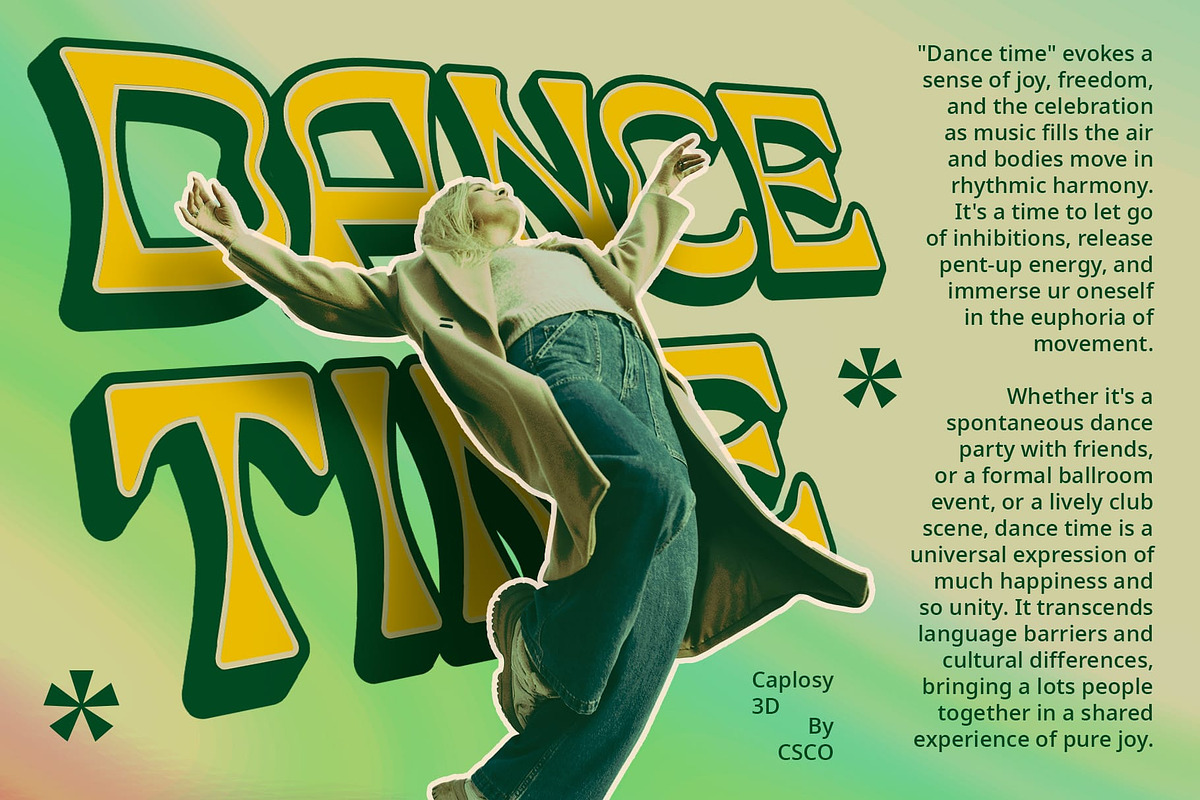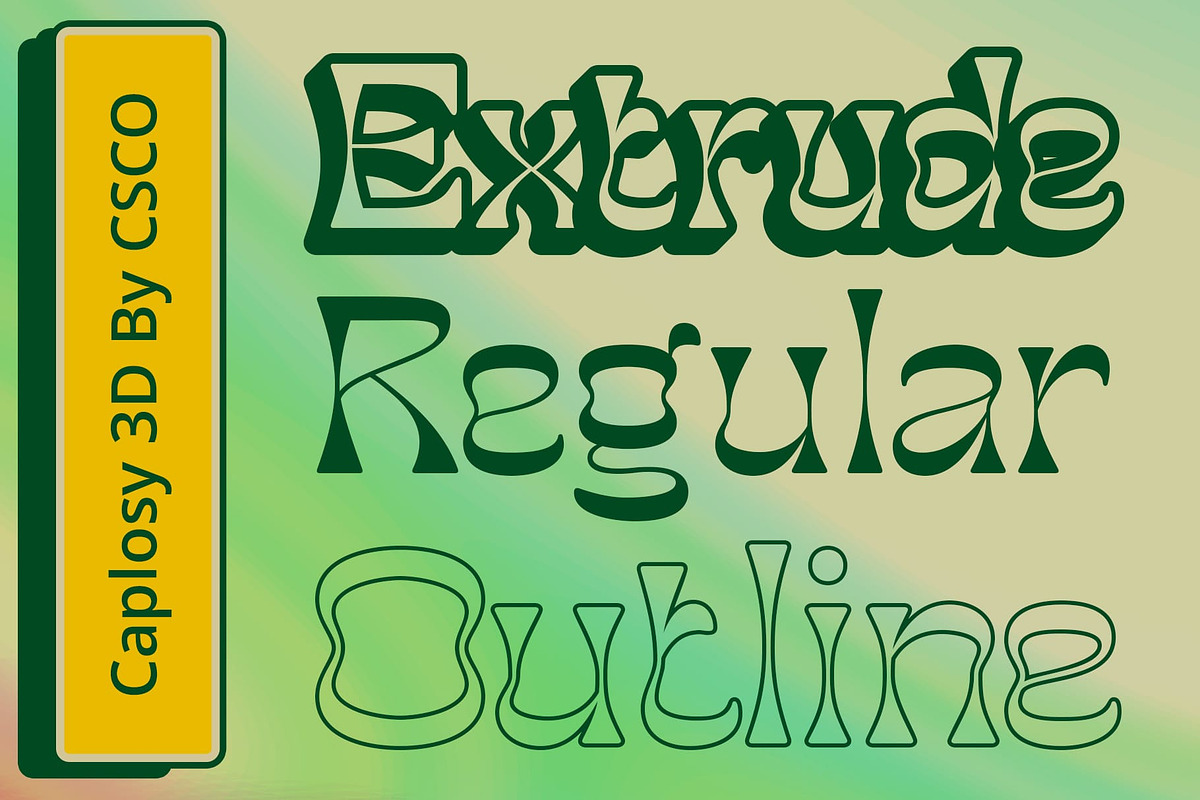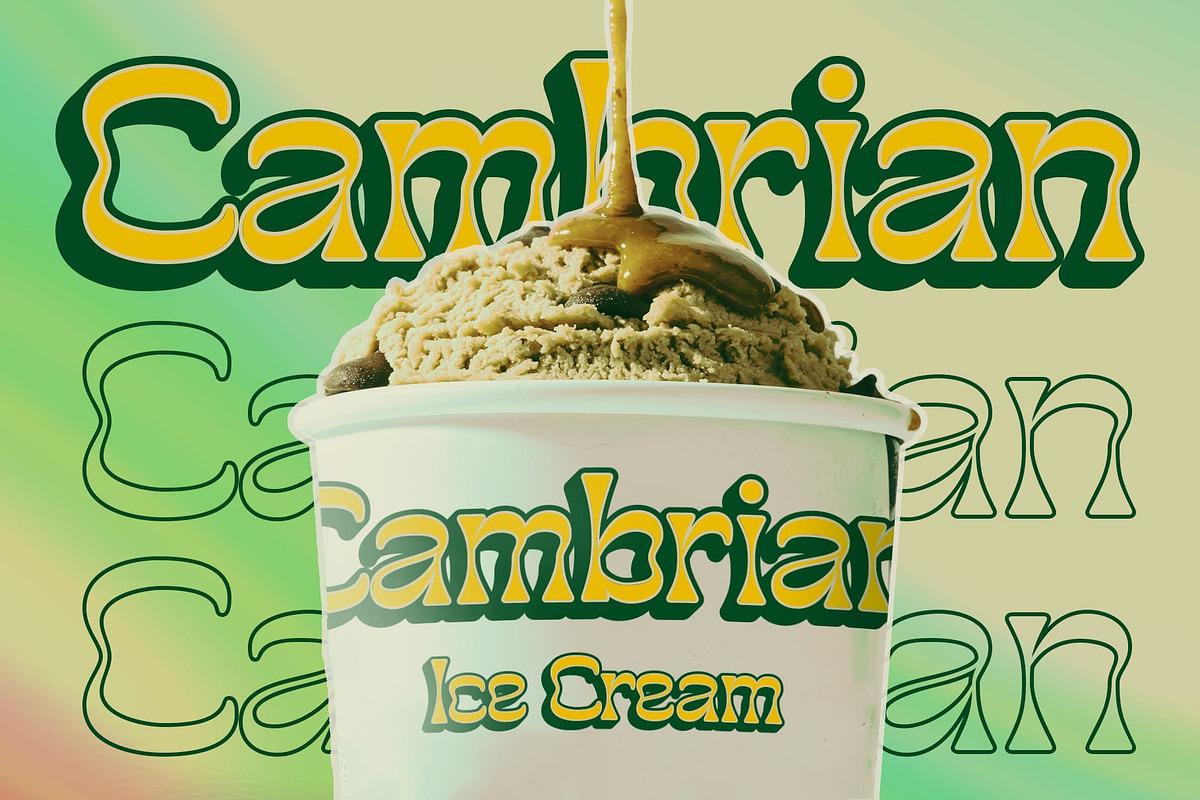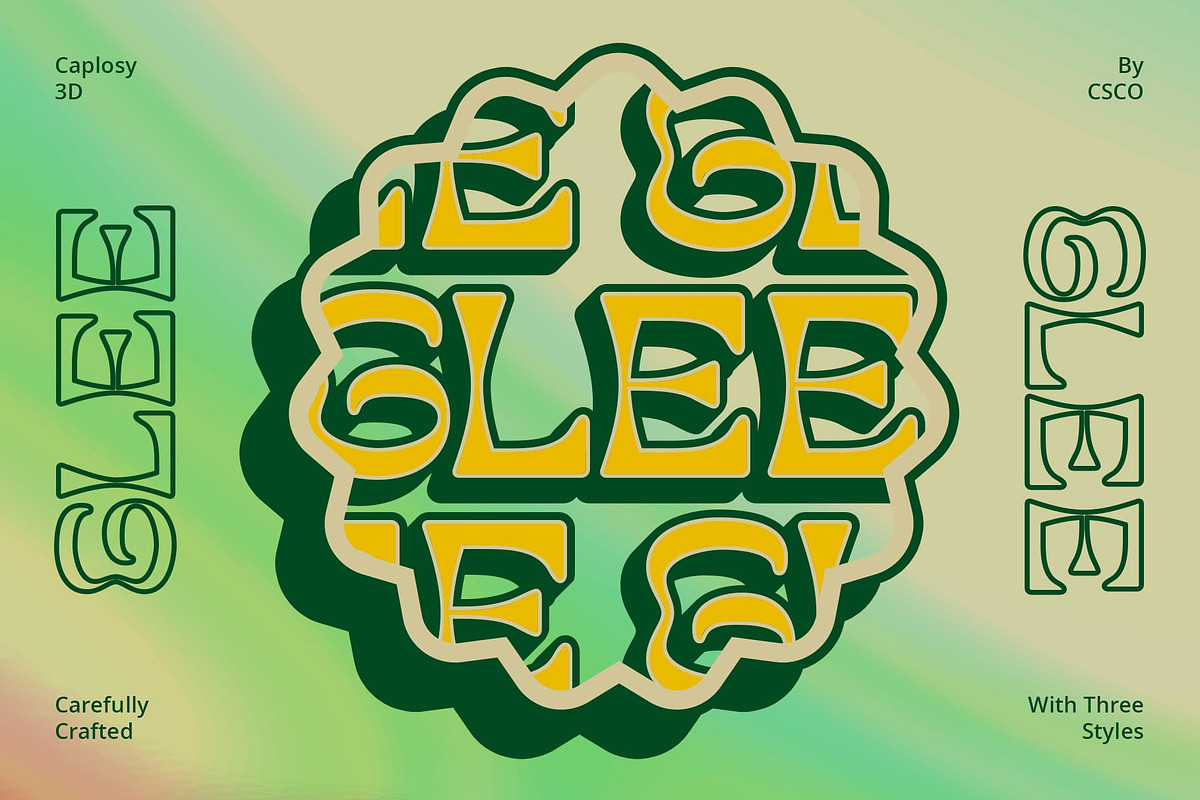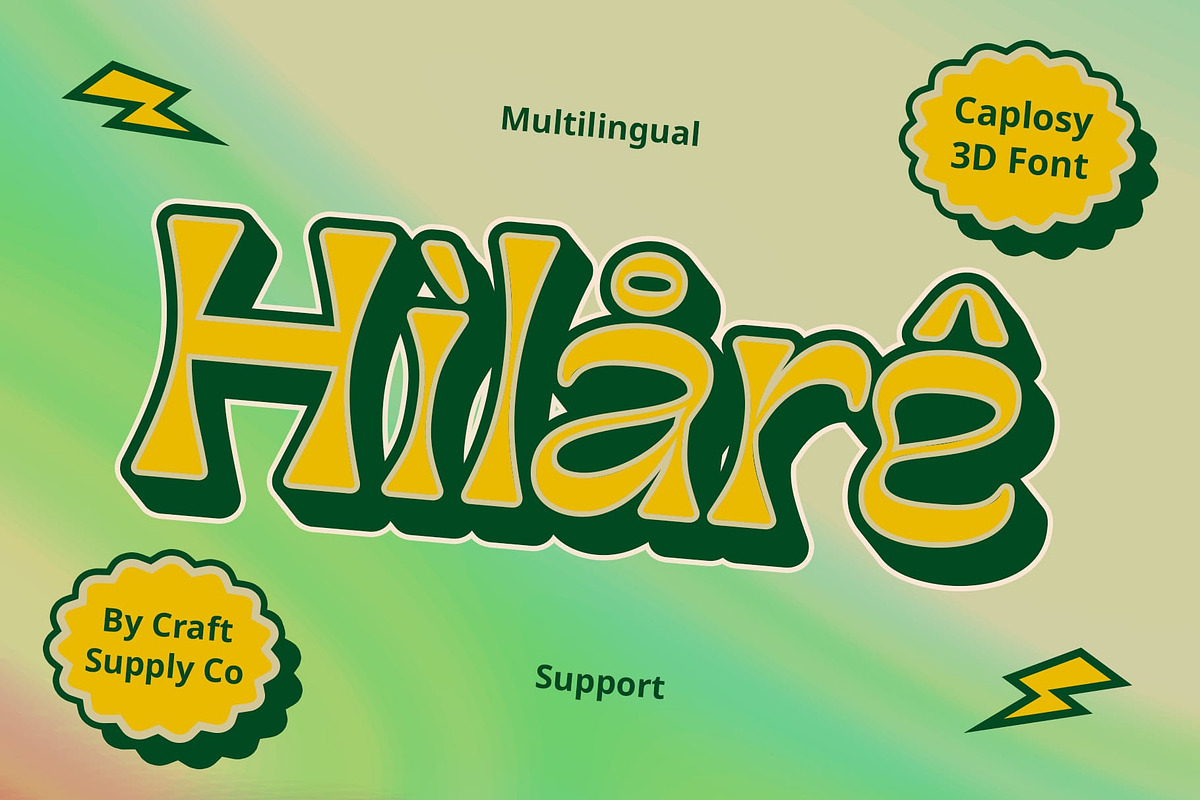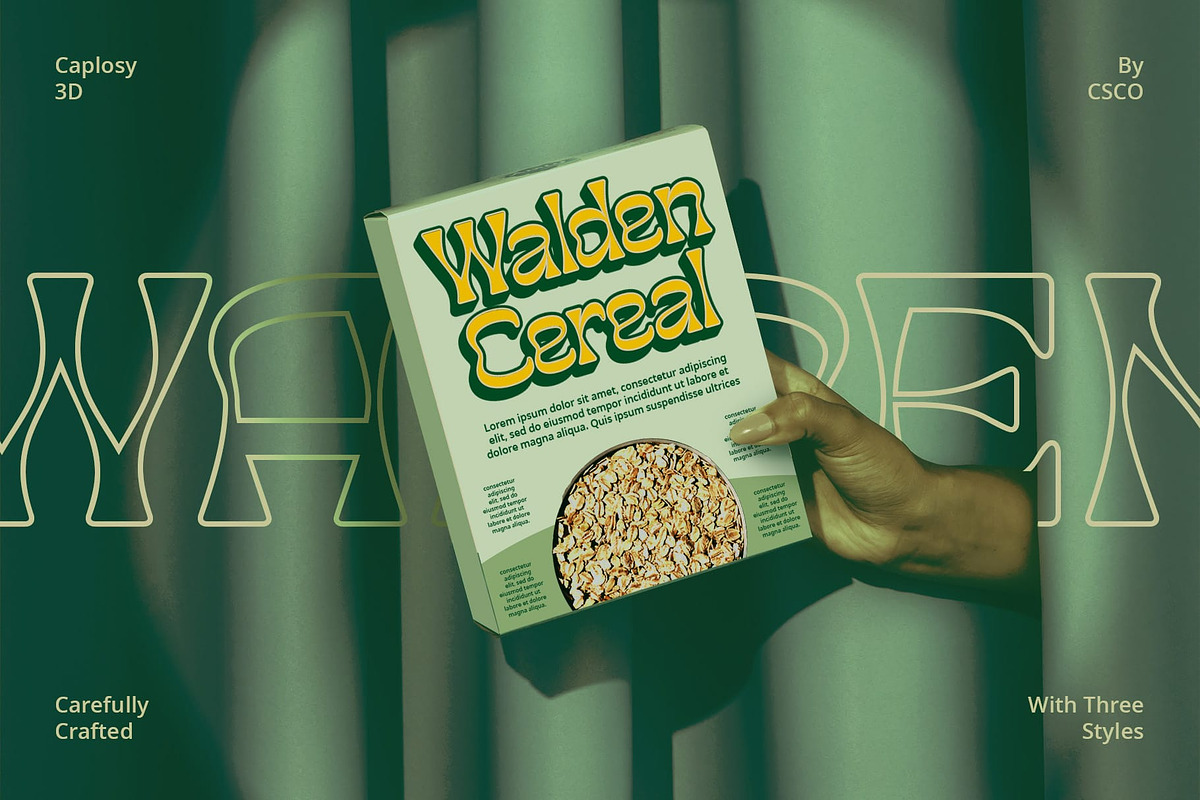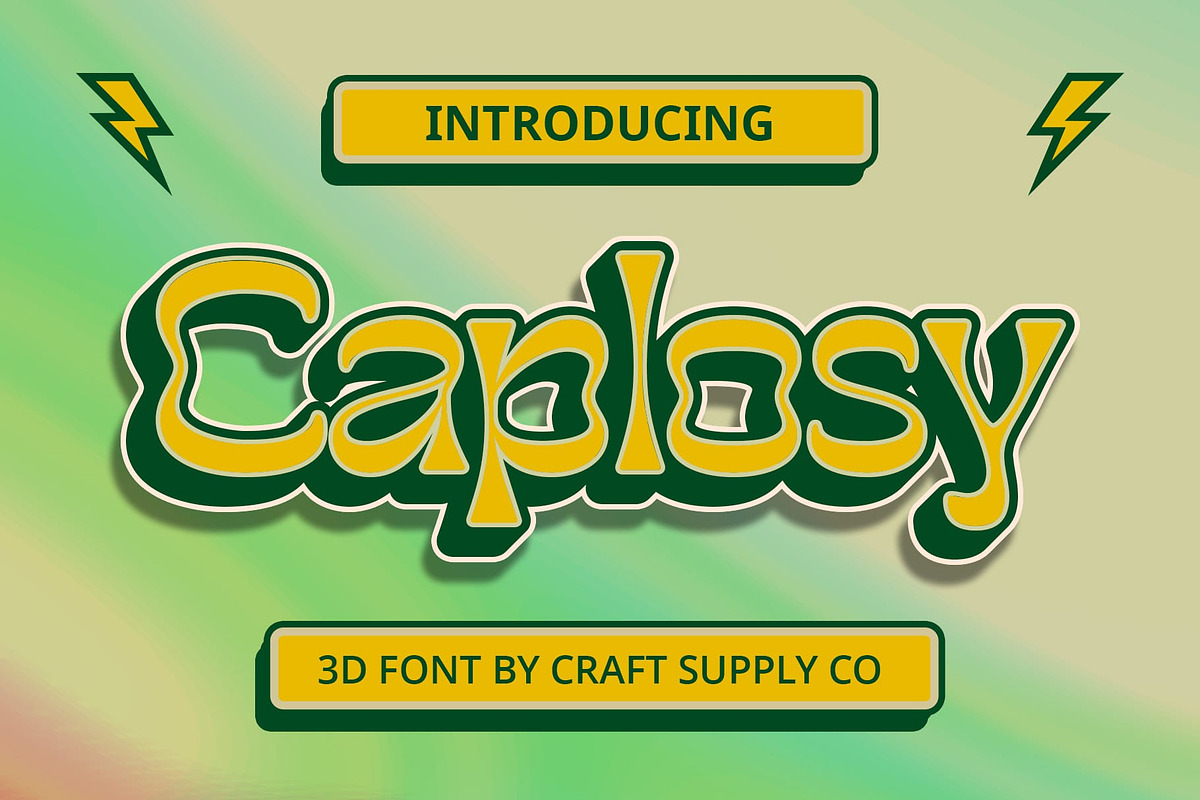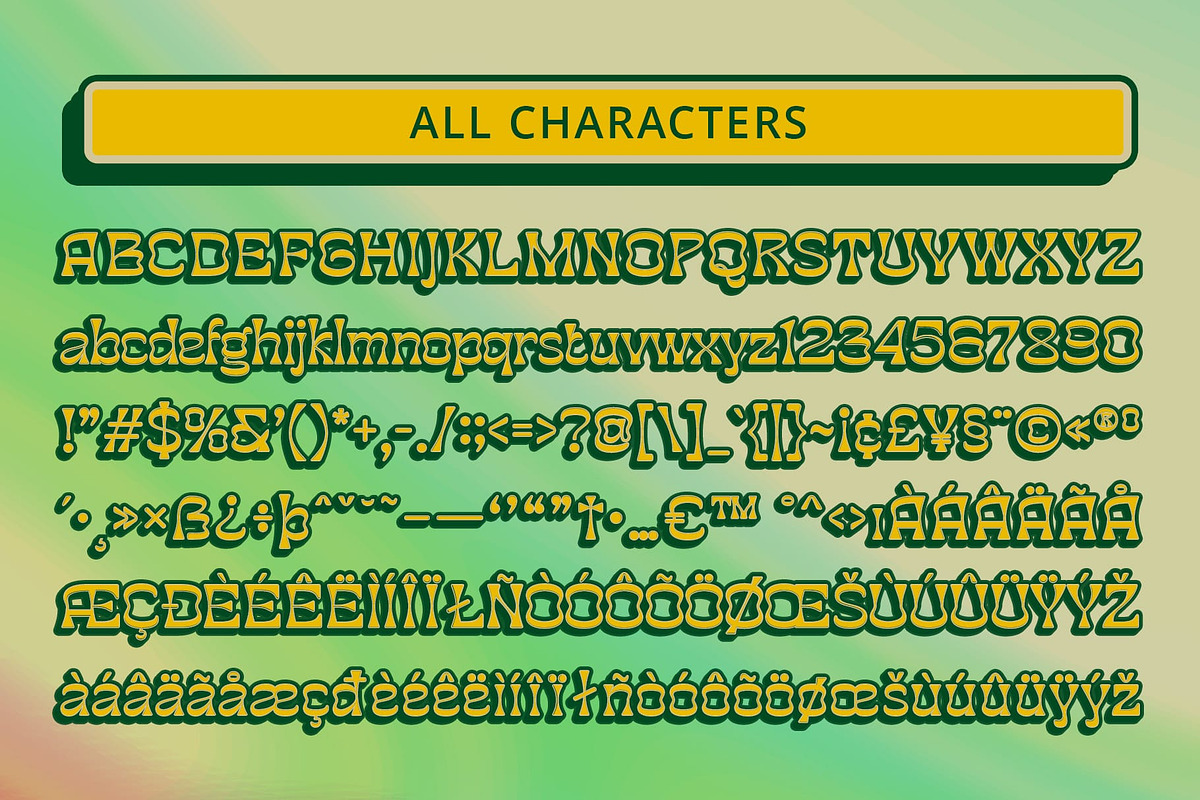
Caplosy 3D
Caplosy 3D: Funky Display Typography
Vibrant and Playful Design Caplosy 3D features a funky display style that exudes vibrancy and playfulness. Its bold and lively appearance instantly grabs attention and adds a touch of excitement to any project.
Dynamic 3D Effects With captivating 3D effects, This font takes typography to new heights. Each character pops off the page with depth and dimension, creating an engaging visual experience for viewers.
Perfect for Eye-Catching Displays Tailored for display purposes, This font is ideal for projects that require eye-catching typography. Whether it’s posters, headlines, or digital banners, this font ensures your message stands out from the crowd.
Versatile Application Beyond its funky appeal, This font offers versatility in application. From branding and packaging to advertising and web design, it adds a fun and dynamic element to various creative endeavors.
Elevate Your Display This font emerges as a standout choice for those seeking bold and dynamic display typography. With its funky design and captivating 3D effects, it injects energy and personality into any project, ensuring maximum impact and engagement.
- Caplosy Regular
- Caplosy Outline
- Caplosy Extrude Right
- Caplosy Extrude Left